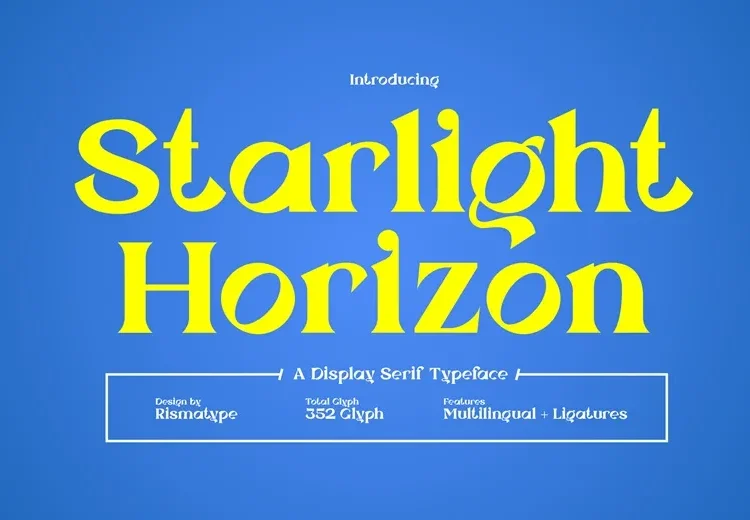
Starlight Horizon Font
Starlight Horizon is a sophisticated display serif font that seamlessly merges timeless elegance with elements of modern art. With its sleek lines and thoughtful design, it offers a refined yet contemporary aesthetic perfect for a variety of creative projects. The font’s bold yet delicate structure ensures it stands out while maintaining a sense of balance and style.
Featuring an impressive 352 glyphs, Starlight Horizon is designed to cater to diverse artistic requirements. It also includes support for multiple languages and ligatures, ensuring versatility and usability across a wide range of applications. Whether used for headlines, logos, or editorial layouts, this font adds a touch of class and professionalism to any design.
Its flexibility makes it suitable for various projects, including branding, posters, invitations, packaging, and editorial designs. Starlight Horizon enhances creative endeavors with its ability to exude both modernity and timeless charm, ensuring your work leaves a lasting impression.